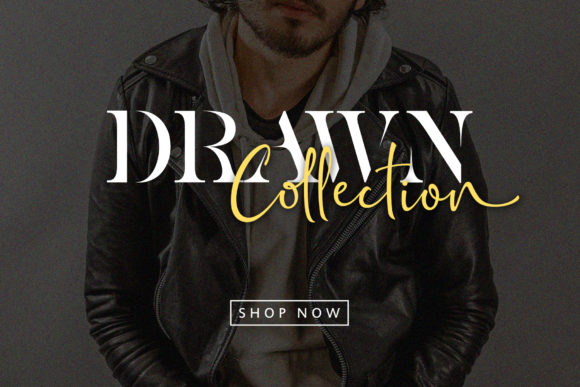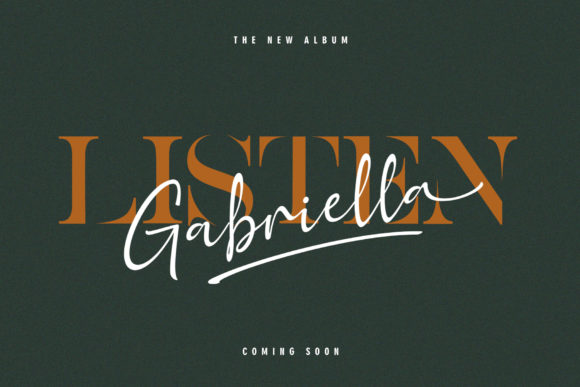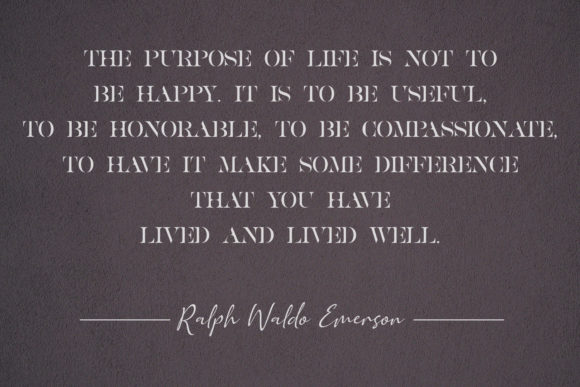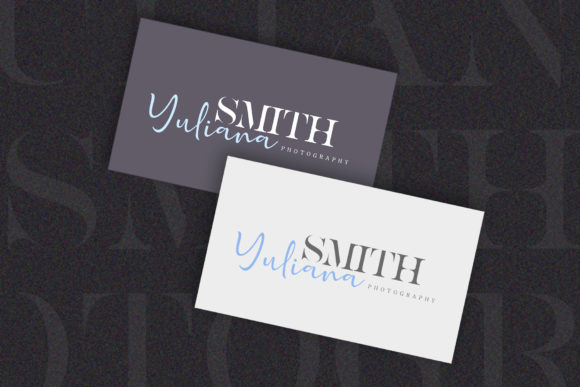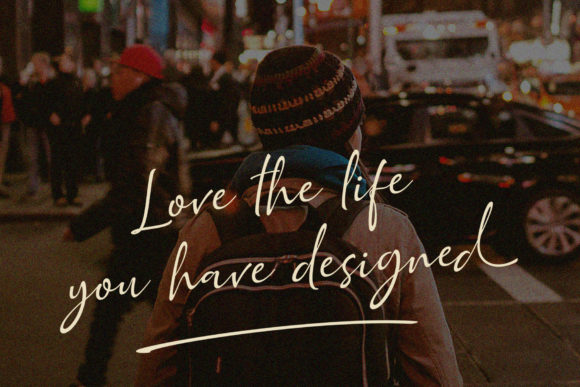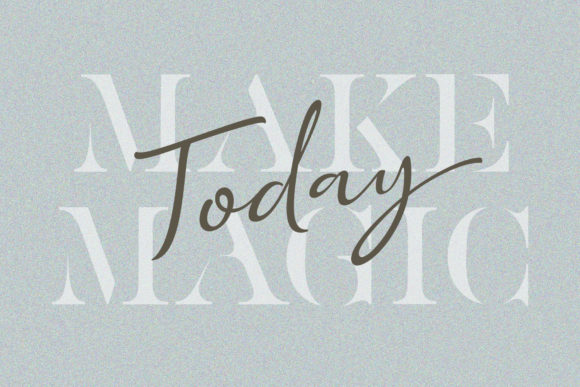
The Art of Design: Unleashing the Timeless Elegance of the Golden Class Font
Have you ever sat at your desk, staring at a blank canvas, waiting for that spark of creativity to ignite? The moment when the ideas start flowing, and your design project transforms into a masterpiece? That’s exactly what happens when you add a touch of the Golden Class Font to your work.
The Golden Class Font is a beautiful, handwritten typeface that exudes elegance and sophistication. Its authentic twist makes it the perfect addition to any design project, elevating it from ordinary to extraordinary. Whether you’re a seasoned designer or just starting out, this font is a valuable tool in your creative arsenal.
With the Golden Class Font, you’ll be able to breathe new life into your designs, making them truly unforgettable. So, why settle for ordinary when you can create something extraordinary with the Golden Class Font?
Key Features of Golden Class Font
- Font Family: Golden Class Font is a modern, elegant script font, designed for luxury and high-end applications.
- Unique Characteristics: Features a unique blend of classic and modern elements, with intricate details and subtle flourishes, making it perfect for branding and packaging design.
- Language Support: Supports a wide range of languages, including Latin, Cyrillic, and Greek scripts, making it a versatile font for global applications.
Review of Golden Class Font
As a designer, I was excited to try out the Golden Class Font. After using it in a few projects, here’s my honest review.
- Unique and elegant design: Golden Class Font has a beautiful, luxurious feel to it, making it perfect for high-end branding and advertising.
- Excellent legibility: The font is clear and easy to read, even at smaller sizes, which is essential for body text.
- Wide character set: Golden Class Font includes a wide range of characters, including Cyrillic and Greek alphabets, making it suitable for international projects.
- Limited language support: While the font includes a wide character set, it’s not designed for complex scripts like Arabic or Chinese.
- Not suitable for body text at very small sizes: While the font is legible at smaller sizes, it starts to lose its elegance and becomes difficult to read at sizes below 10pt.
Overall impression
Golden Class Font is a beautiful, elegant font that’s perfect for high-end branding and advertising. While it has some limitations, it’s a great choice for projects that require a luxurious and sophisticated feel. However, it’s not suitable for body text at very small sizes or for projects that require complex script support.
Tips for Getting the Most Out of Golden Class Font
Here are some tips to help you get the most out of Golden Class Font:
- Use Golden Class Font for headings and titles to add a touch of elegance to your design.
- Combine Golden Class Font with other elegant fonts to create a sophisticated look.
- Experiment with different font sizes and styles to add visual interest to your design.
Here are some common use cases for Golden Class Font:
- Luxury branding and packaging.
- High-end marketing materials and broch
Alternatives to Golden Class Font
Playfair Display is an elegant, high-end serif font ideal for formal and luxurious designs. It features intricate details and connections between letters, making it perfect for use in invitations, wedding designs, and high-end branding.
Comparison to Golden Class Font: While both fonts are elegant and luxurious, Playfair Display has a more refined and sophisticated look. It’s suitable for use in larger font sizes, making it perfect for headings and titles.
Didot is a classic serif font known for its refined and elegant look. It’s often used in high-end designs, such as luxury branding, fashion, and fine art.